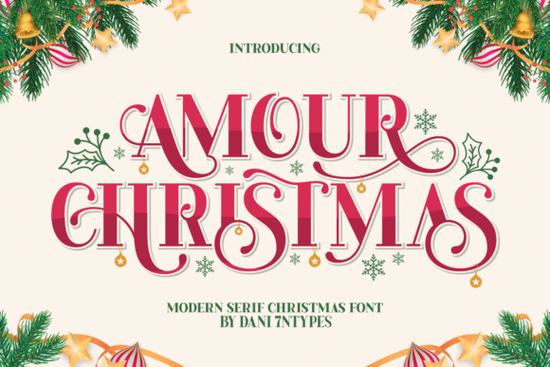
Amour Christmas Font is a standout choice for anyone looking to bring a touch of holiday cheer to their design projects. Whether you're creating greeting cards, social media graphics, or branding materials, this font adds a festive and elegant flair that’s hard to match. Its playful swashes and ornate details make it ideal for seasonal themes, while the luxurious serif base ensures it remains sophisticated enough for professional use.
If you're searching for a font that combines tradition with a modern twist, Amour Christmas Font could be just what you need. It’s particularly well-suited for designers, crafters, and small businesses aiming to create visually appealing holiday content without sacrificing quality or style. The font's PUA encoding also makes it easy to access all its unique characters and alternate designs, giving you more creative freedom.
What Makes Amour Christmas Font Stand Out?
One of the key features of Amour Christmas Font is its ability to convey joy and celebration through typography. The whimsical swashes and playful ornaments add a sense of movement and energy, making it perfect for holiday messages. At the same time, the classic serif structure ensures readability and a polished look, which is essential for any professional design work.
Whether you're designing for a boutique, a print-on-demand store, or personal projects, this font offers versatility. It works well in both digital and print formats, making it a valuable addition to your design toolkit. The font's unique blend of elegance and fun means it can be used across a wide range of applications, from logos to packaging.
How to Use Amour Christmas Font in Your Projects
When using Amour Christmas Font, consider the context of your design. For example, it’s great for holiday cards, where its festive nature can really shine. You can also use it for social media posts to catch attention and add a celebratory vibe. For branding purposes, it can help establish a cohesive holiday theme that resonates with your audience.
Keep in mind that while the font is highly decorative, it's best used in smaller text sizes or as a headline. This helps maintain legibility, especially in digital formats. Experimenting with different color schemes can also enhance the visual impact of your designs, allowing you to highlight the font's unique characteristics.
As you continue to build your design library, consider how each font can contribute to your creative vision. Amour Christmas Font is a great example of how typography can elevate the overall feel of your work, especially during the holiday season.
Before finalizing your design, take a moment to test the font in different contexts. This will help you ensure it looks good across various platforms and formats. Remember, the goal is to create something that not only looks beautiful but also communicates your message effectively.
Whether you're a designer, crafter, or small business owner, Amour Christmas Font offers a fresh and festive way to express your creativity. With its combination of elegance and charm, it's sure to become a favorite in your collection.
Checklist for Using Amour Christmas Font:
- Test the font in different sizes and formats.
- Experiment with color combinations to enhance visual appeal.
- Use it as a headline or accent rather than body text.